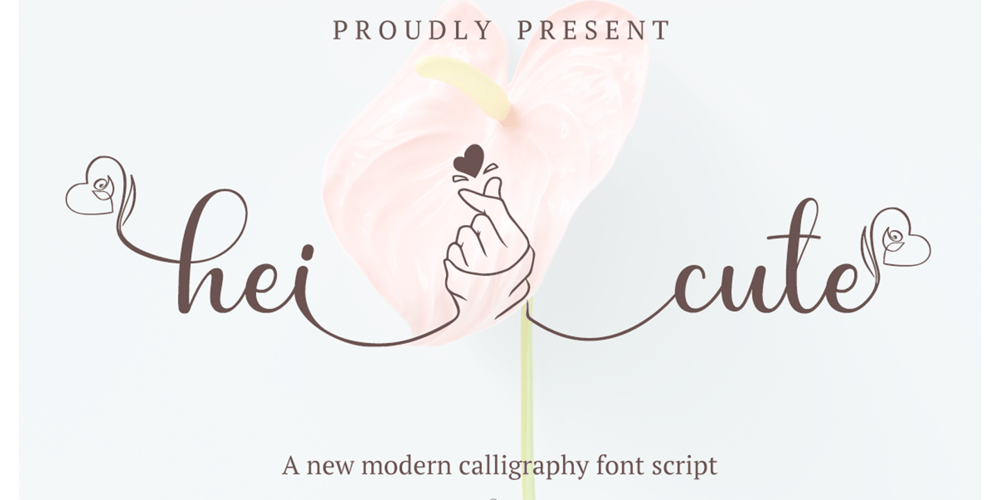
Hei cute
Hei cute font
Hei cute Font Family was designed by Muhammad Zaini and published by Cocodesign. Hei cute contains 1 styles and family package options. Hei Cute is a modern calligraphy font design, including regular. You can use this lovely font for various purposes: logos, product packaging, wedding invitations, branding, headlines, signage, labels, signatures, book covers, posters, quotes, and more.